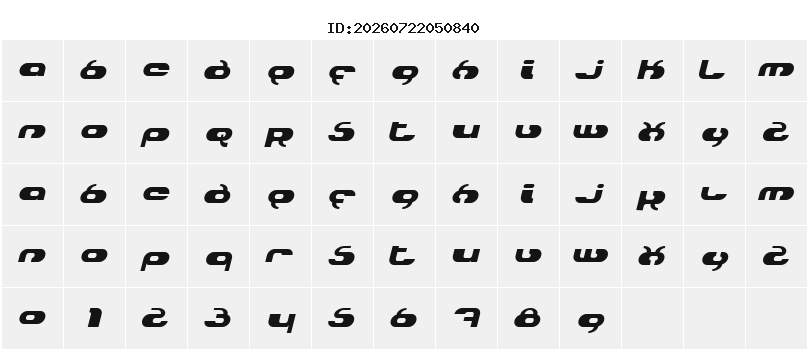
• Font Name: Hydro
• Full Font Name: Hydro Italic
About Hydro.ttf
Hydro.ttf is a modern, elegant sans-serif font designed for ultimate readability and visual harmony. Perfect for branding, headlines, web design, and print materials.